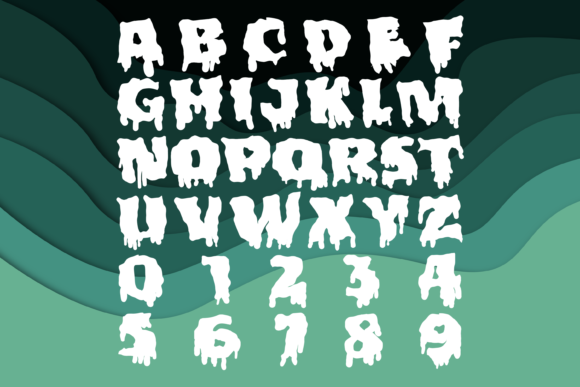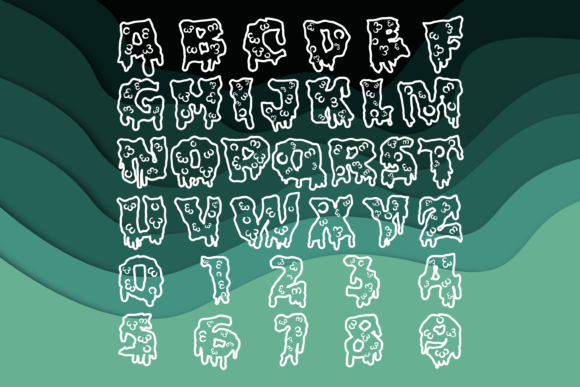
Introduction to Melt Zombie Duo Font
Melt Zombie Duo is a cool, creepy and aggressive display font.
It works incredibly well on designs related to Halloween or October parties .
Key Features of Melt Zombie Duo Font
Why Choose Melt Zombie Duo Font?